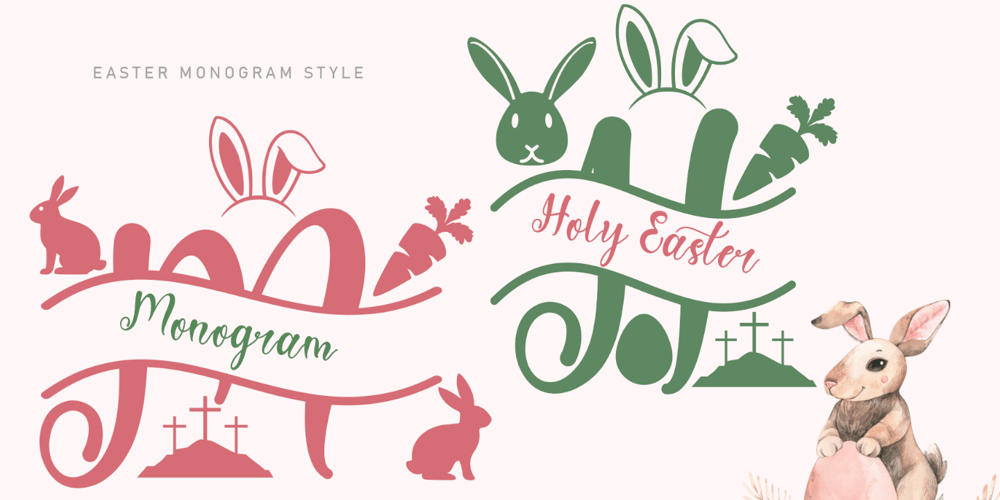
Holy Easter Monogram Font Family was designed by Isroni Yoga Prasetya and published by Yoga Letter. Holy Easter Monogram contains 2 styles and family package options. “Holy Easter Monogram” is a beautiful and elegant monogram font. This font is equipped with monograms, uppercase, lowercase, numerals, punctuation, and multilingual support. Very suitable for Easter, spring, summer, weddings, holidays, animal moments, book titles, film titles, and others.